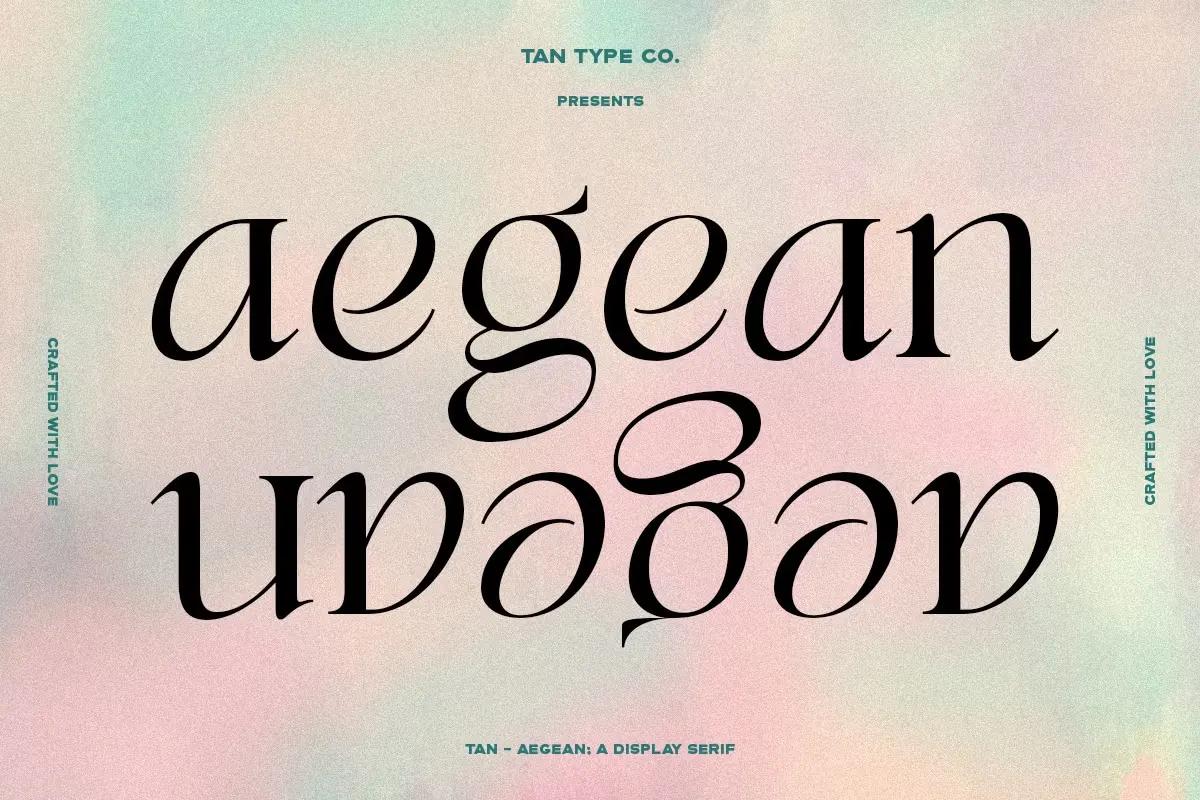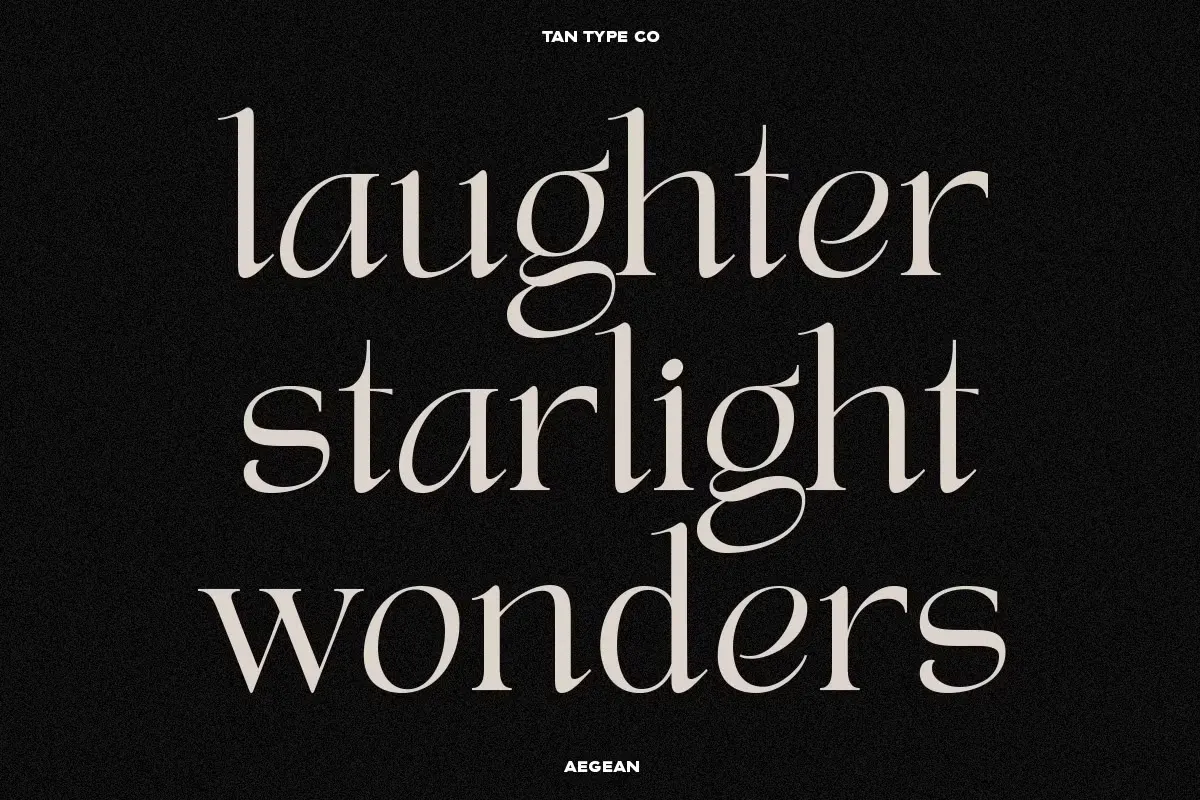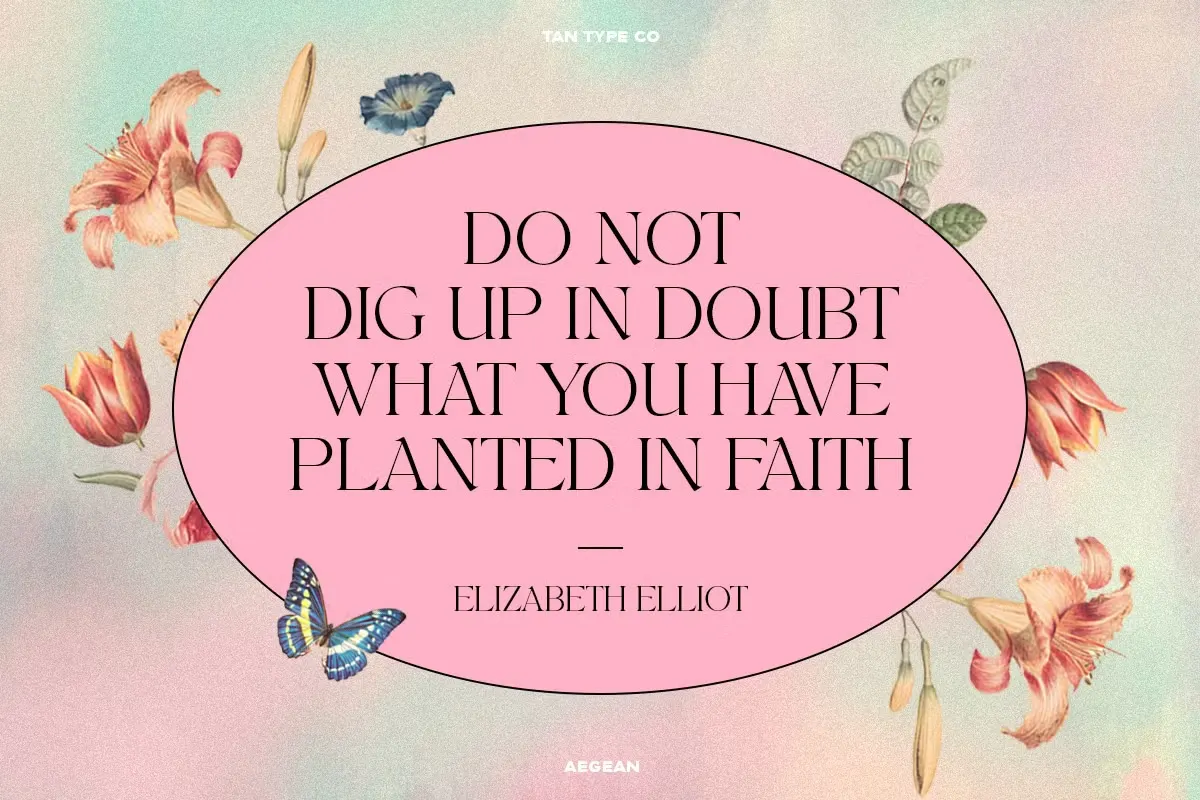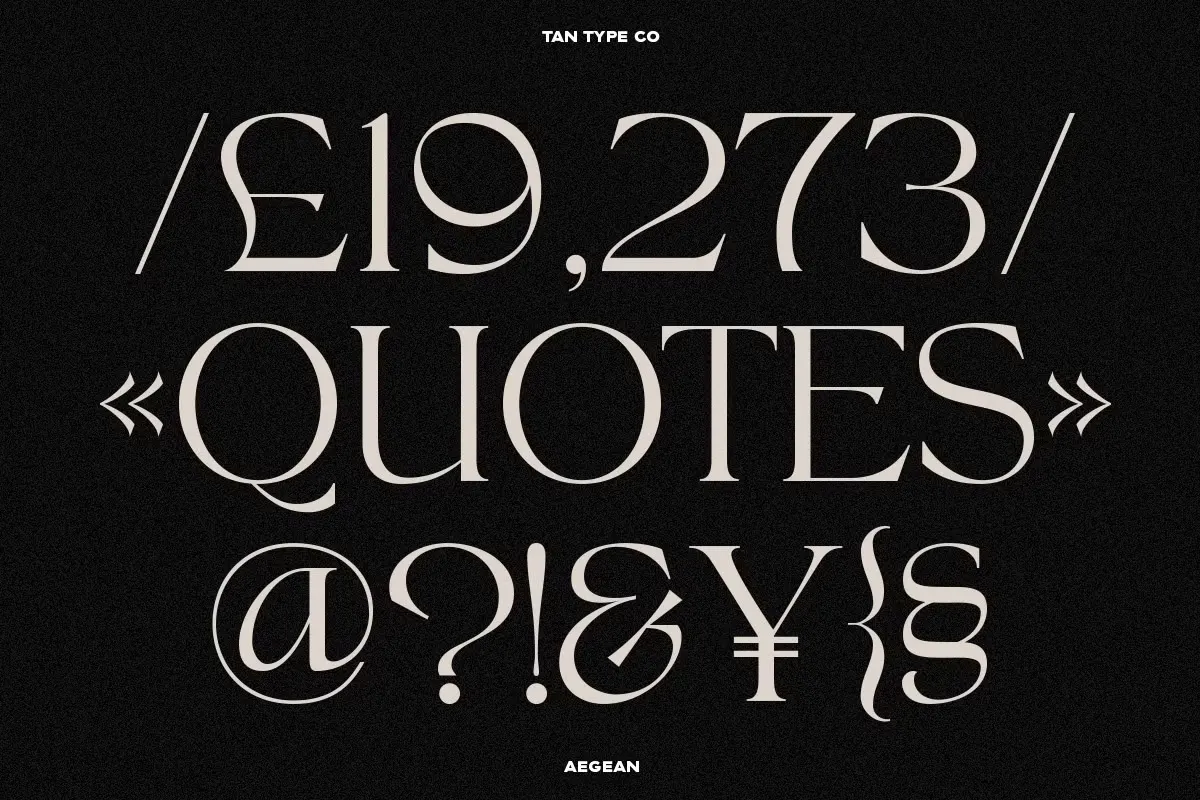
About Tan Aegean Font
The Font Type and the Designer
The Tan Aegean Font is a display serif created by TanType, a studio recognized for producing decorative fonts with flair. Aegean reflects TanType’s philosophy: blending classic and versatile serif structures with a touch of playfulness. It’s built to look timeless but never boring, perfect for modern projects needing sophistication with personality.
What sets Aegean apart is its careful balance. The foundation feels inspired by retro serif traditions, but the refined curves and bold strokes bring it into today’s design landscape. The typeface feels just as natural on a magazine headline as it does in a brand logo. This versatility makes it attractive to designers across industries, from editorial teams to advertising agencies.
TanType continues to expand their collection of creative and decorative fonts, and Aegean stands out as one of their most stylish, elegant serif releases to date.
Features of This Font
The Tan Aegean Font combines elegance and sophistication with usability. As a display serif, it’s designed for impact, making it perfect for bold headlines, branding, and creative projects that demand attention. Each glyph carries fine detail, giving the font a sense of aesthetic exclusivity.
It supports uppercase, lowercase, numerals, punctuation, and OpenType features. Designers can access alternates, ligatures, and stylistic variations to customize text layouts. This makes it easy to tailor the font to different design needs without losing consistency. Its multilingual support expands its utility across diverse global projects.
The font family delivers a classic and versatile style while adding a modern twist. Its touch of playfulness makes it less rigid than many serifs, giving it more personality. This flexibility allows it to adapt from editorial headlines to social media graphics. The careful detailing ensures it looks polished in both digital and print environments.
Where Can You Use This Serif Font?
In editorial design, it works beautifully for magazines, headlines, and feature spreads. Its bold and elegant letterforms ensure attention without sacrificing readability. Designers can rely on its alternates and OpenType features to bring variety into layouts while maintaining consistency.
For digital platforms, Tan Aegean adapts to websites, apps, and social media. Its stylish curves enhance graphics for Pinterest, Instagram, and online campaigns, giving content a polished, professional edge. The font also pairs well with minimalist sans serif fonts, offering contrast and balance in design systems.
It’s equally effective in creative projects such as postcards, invitations, and promotional material. Its timeless yet modern aesthetic makes it a strong choice for fashion brands, luxury labels, and high-end publications. Whether you’re aiming for elegance, sophistication, or a playful decorative twist, this font delivers.